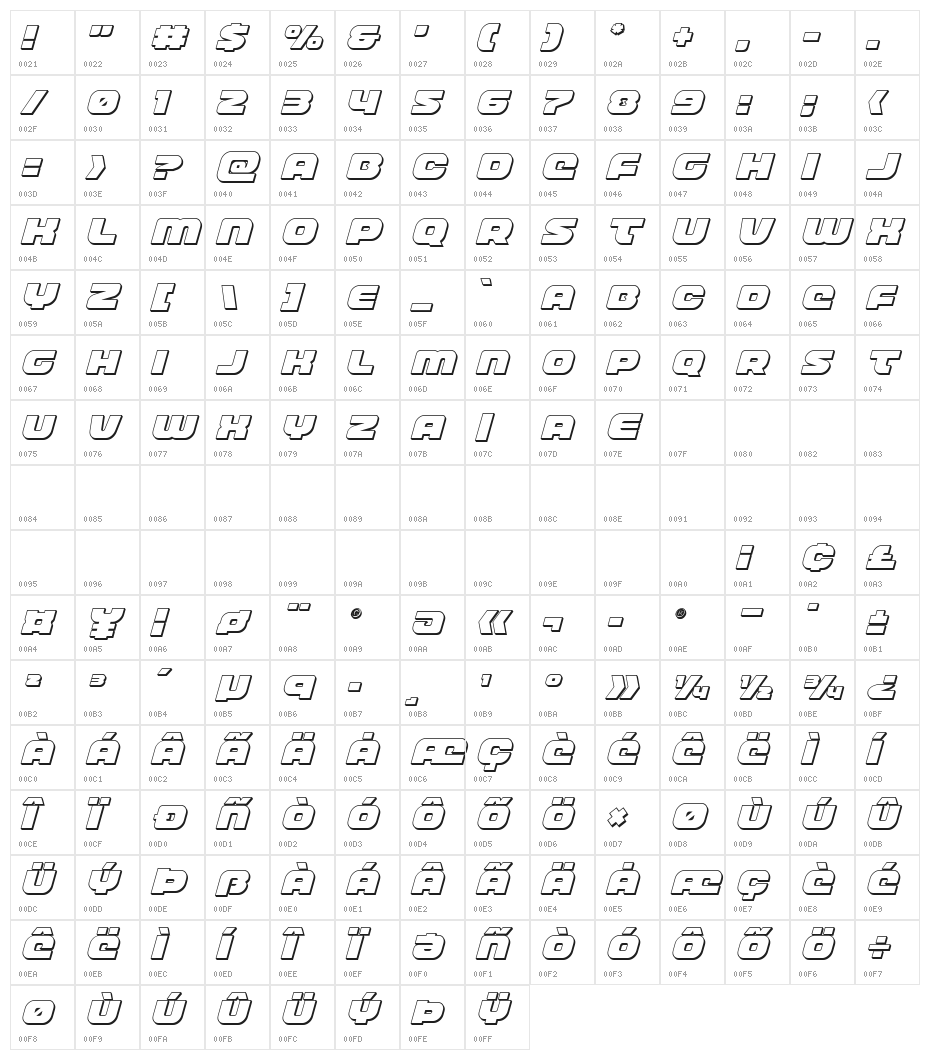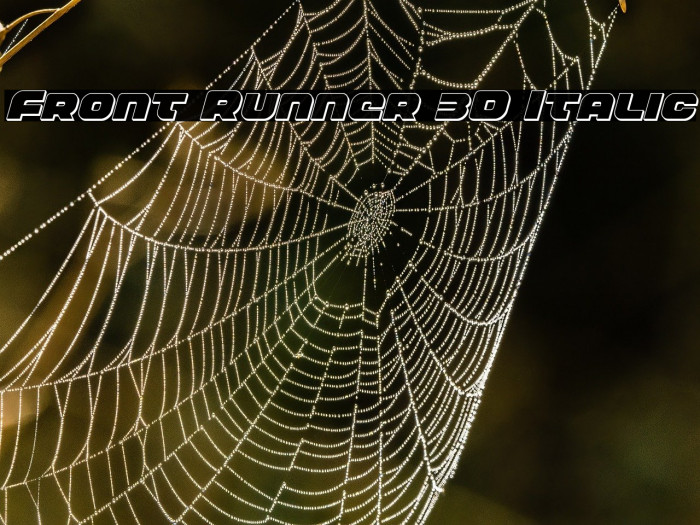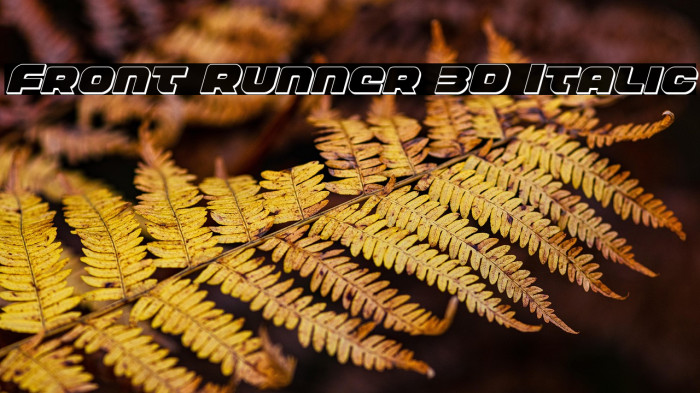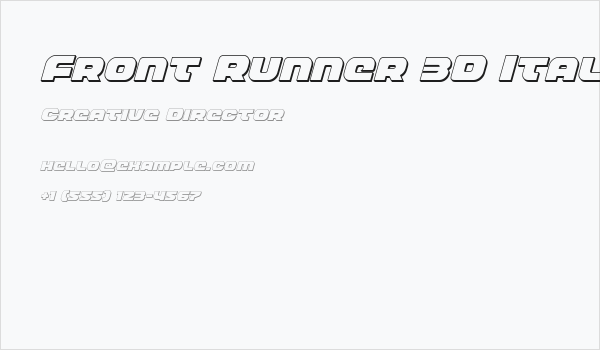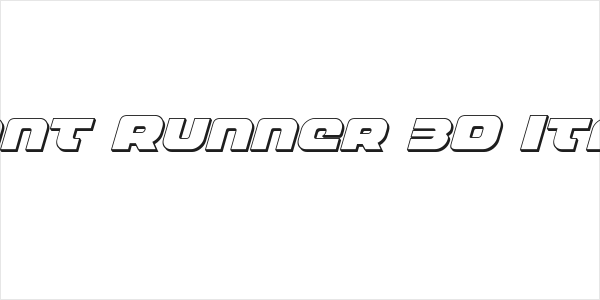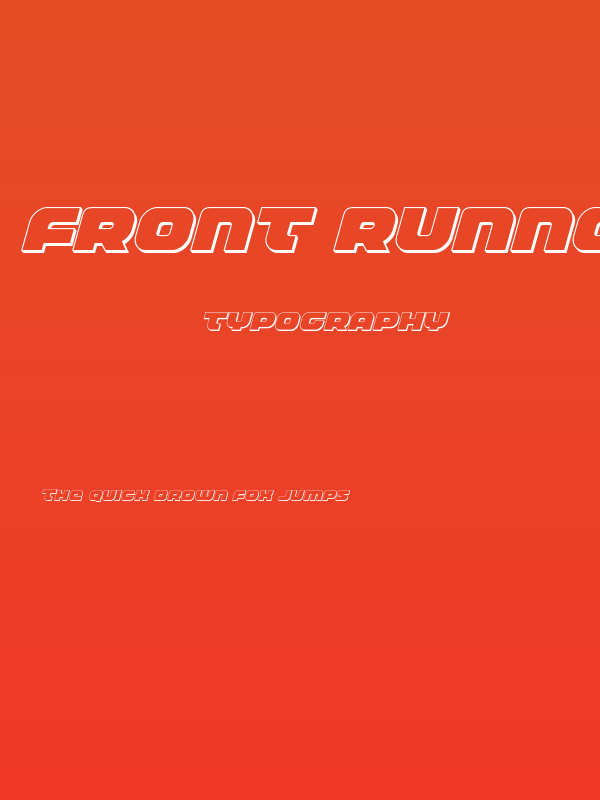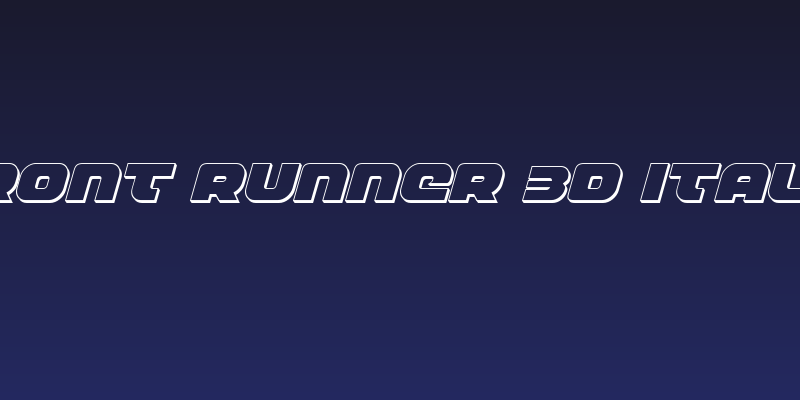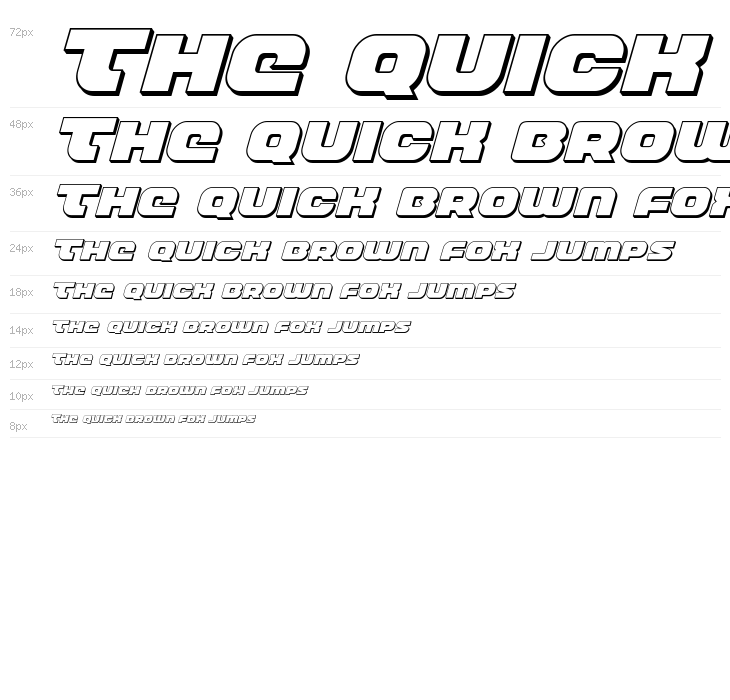
Front Runner 3D Italic Font
Front Runner 3D Italic Description
This font features a bold, three-dimensional style with a distinct italic slant, giving it a dynamic and futuristic appearance. The characters are outlined, creating a hollow effect that enhances the 3D illusion. Each letter is designed with a consistent thickness, contributing to a uniform look across the alphabet. The font is highly stylized, making it ideal for attention-grabbing headlines or titles. Its geometric shapes and clean lines provide a modern aesthetic, while the italic angle adds a sense of motion and energy. The numbers and special characters maintain the same bold, outlined style, ensuring visual consistency throughout.
| Overall Style | Futuristic, Modern |
| Proposed Projects | Ideal for sci-fi themed posters, video game titles, or any project requiring a bold, modern look. |